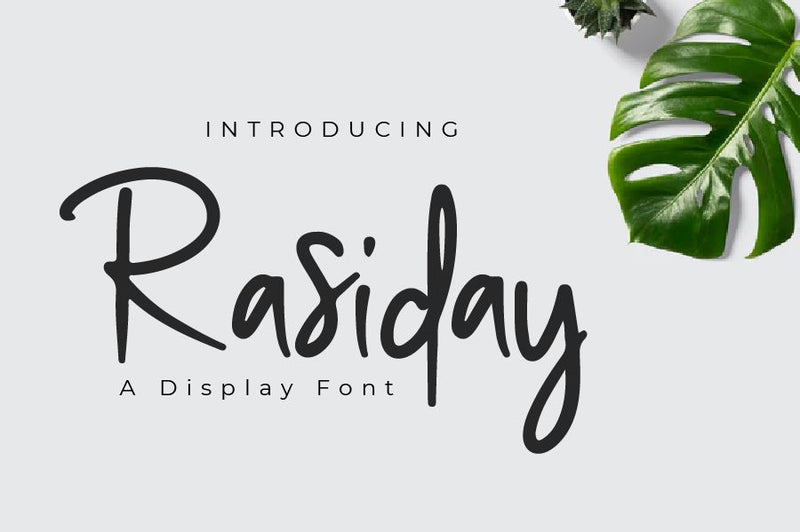
Rasiday Display font
Rasiday is a unique display font. because the style resembles a script. This font is very fresh. with a combination of powerful glyphs. This font is suitable for logotypes, weddings, titles, watermarks and many more.